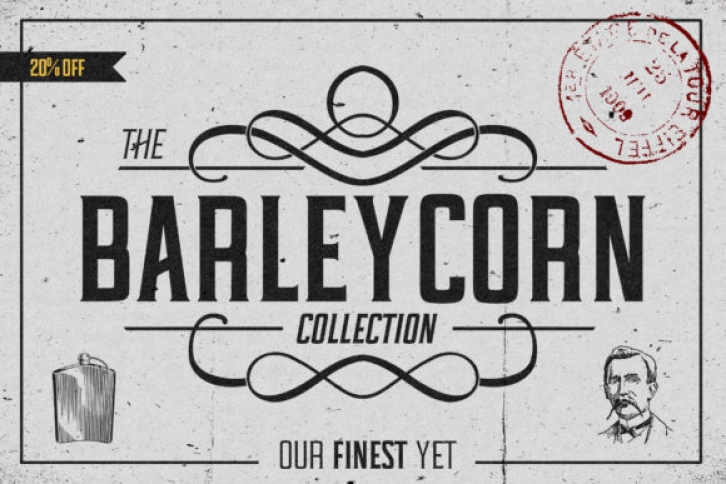
Barleycorn is a retro serif font. Inspired by classic label designs, this unique typeface will give your next project a vintage feel. It comes in regular and light styles and contains stunning illustrations.